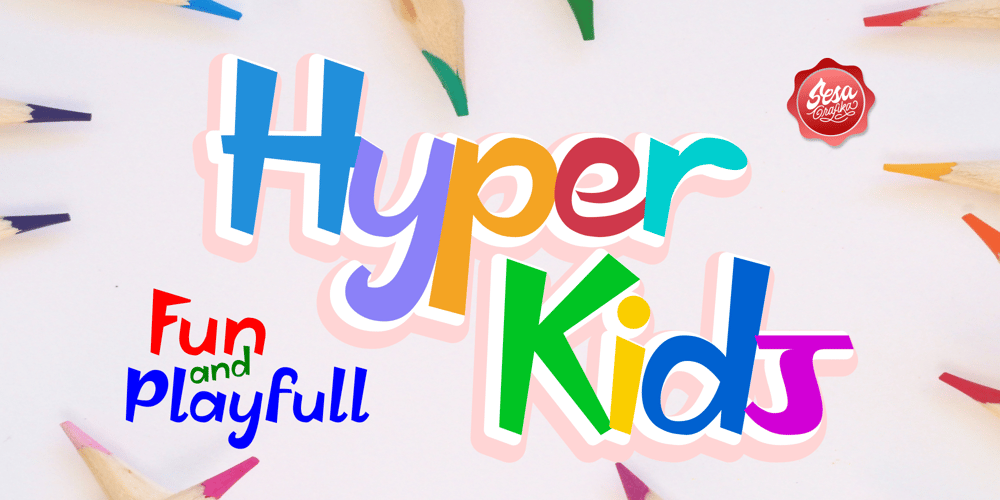
Hyper Kids Font Family was designed by Wisesa Purba Giandar and published by Sesa Grafika. Hyper Kids contains 1 styles and family package options. Hyper Kids is a cool, bold and thick lettered display font. Whether you’re using it for crafts, digital design, presentations, or making greeting cards, this font has the potential to become your favorite go-to font, no matter the occasion!Hyper Kids is specifically designed to support children’s themed designs, which can also be used as a logo that has a fun value for children.and many more designs that can use this Hyper Kids font.